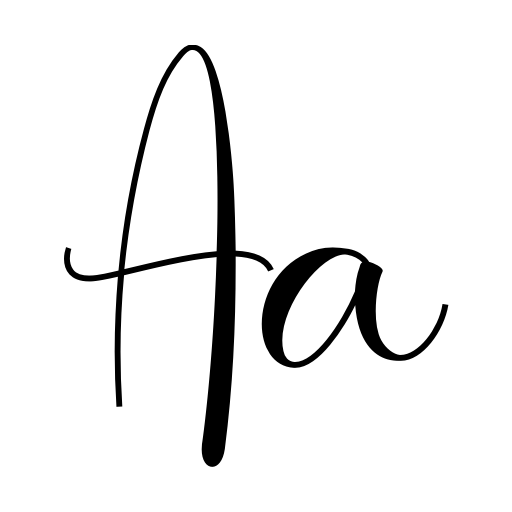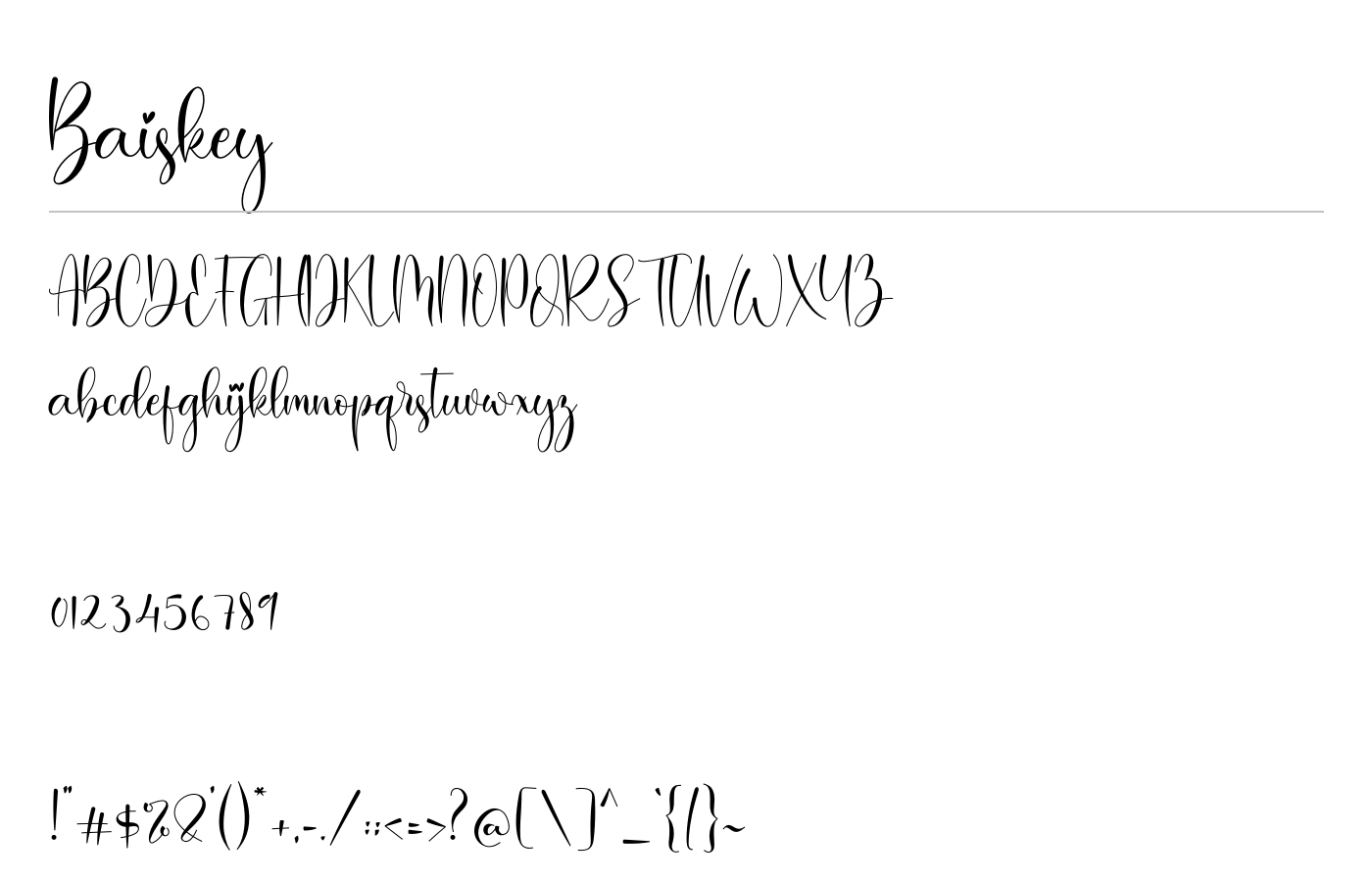
Baiskey is a delicate, modern script font with a light weight and elegant, handwritten feel. Its tall, flowing letterforms feature playful loops and unique character details, making it perfect for creative branding, invitations, and feminine designs. This font adds a charming and personal touch, ideal for projects that want to convey warmth and style with a contemporary flair.
Baiskey Font
| Designer | Nissa Nana |